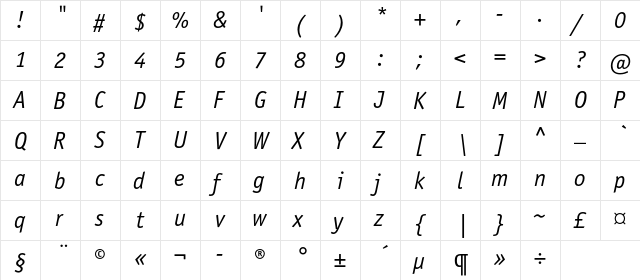
OfficinaSansBookC Italic
Design Context for OfficinaSansBookC Typeface
OfficinaSansBookC offers clean, dependable letterforms without strong stylistic allegiance, making it a practical choice for designers who need flexibility. The slanted form adds forward momentum and visual energy.